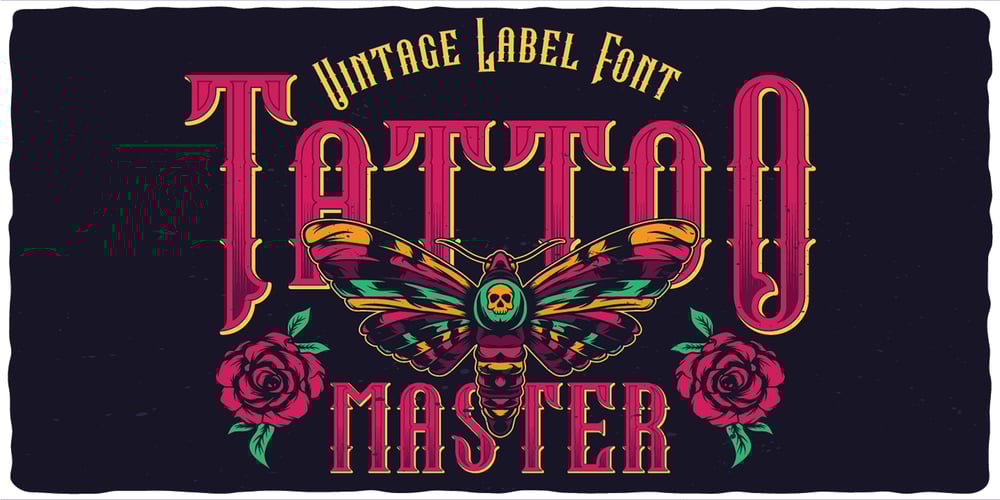
Tattoo Master Font Family was designed by Oleg Voznyy and published by Vozzy. Tattoo Master contains 5 styles and family package options. Introducing a vintage look label font named “Tattoo Master”. This family includes five styles – Regular, Texture, Shadow, Full and Aged. You can see samples on the posters. This font will be great on any retro design on poster, t-shirt, label, logo etc.